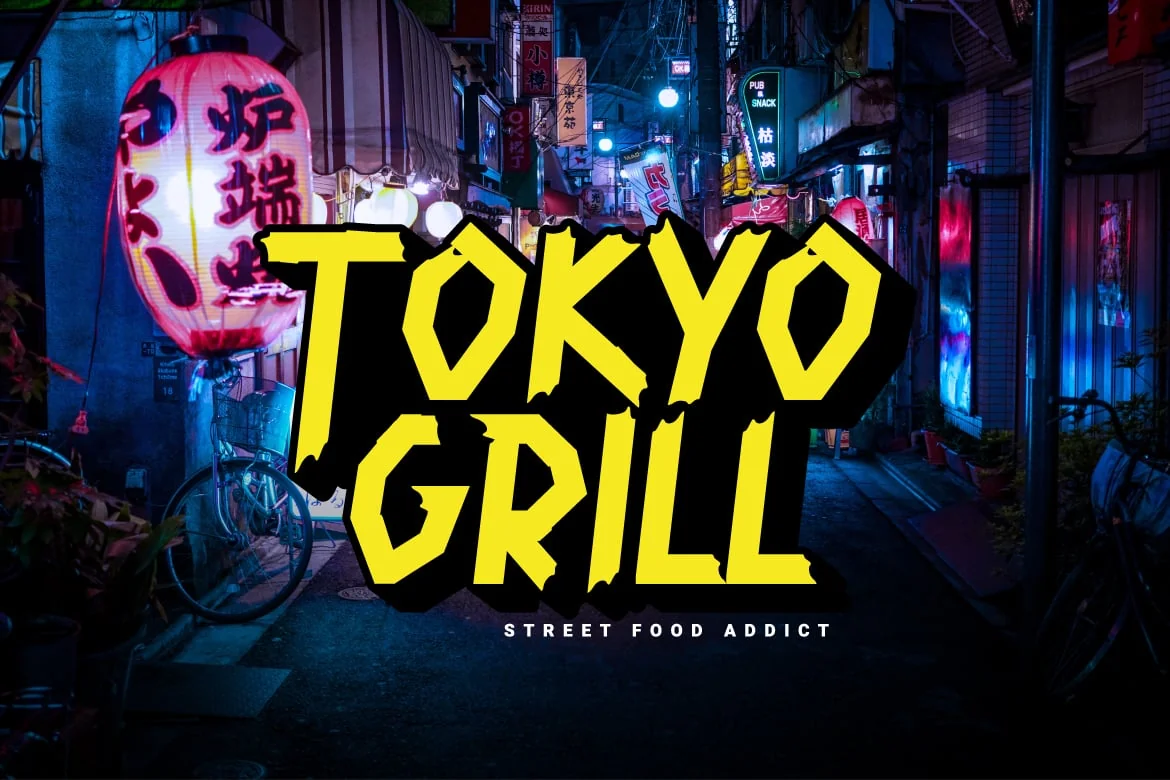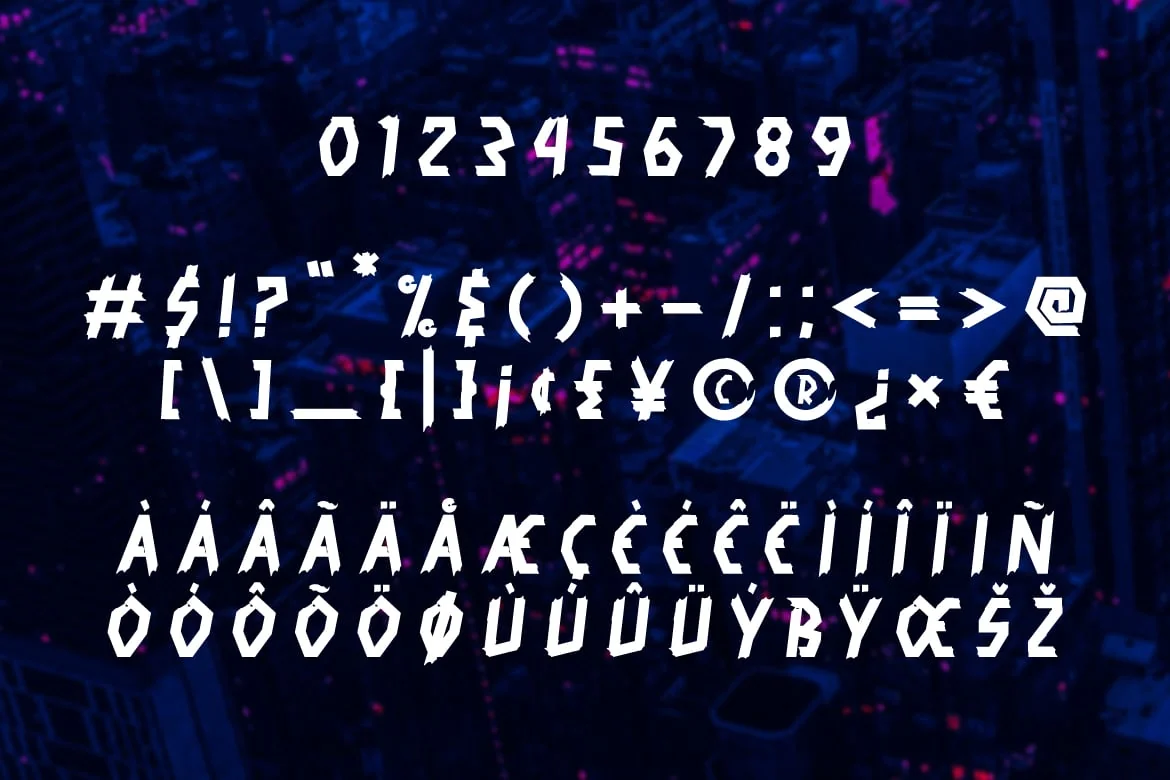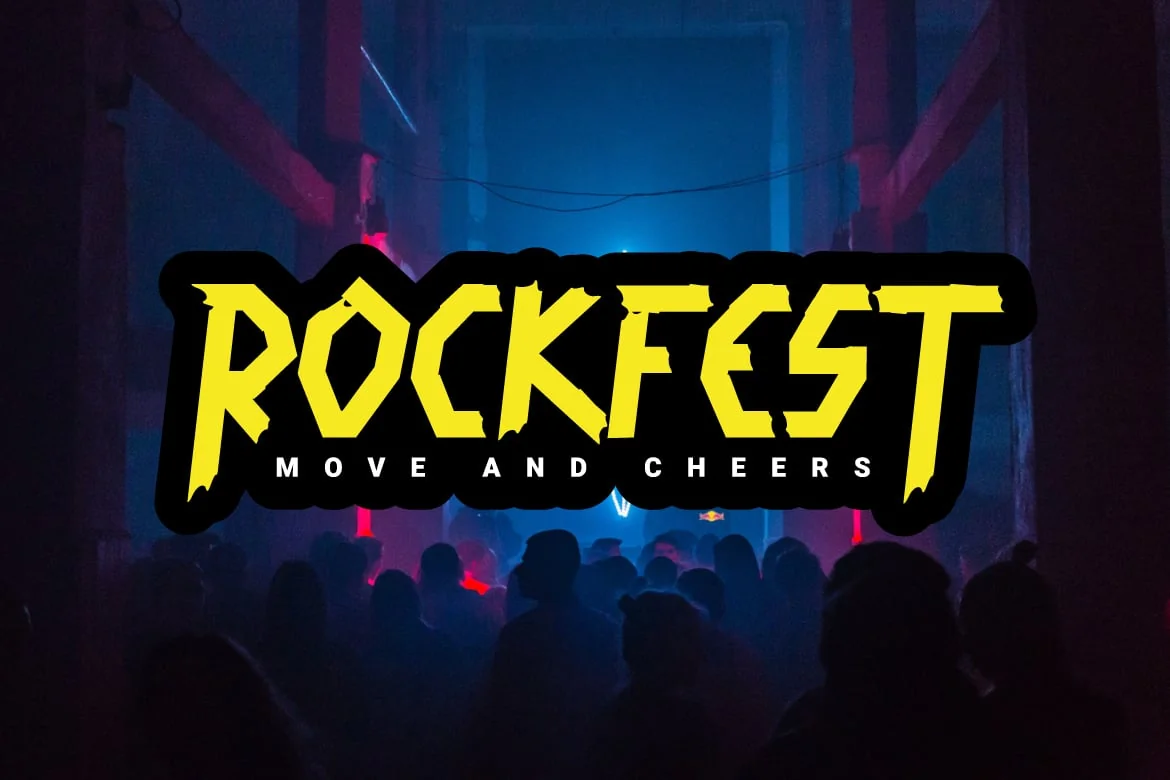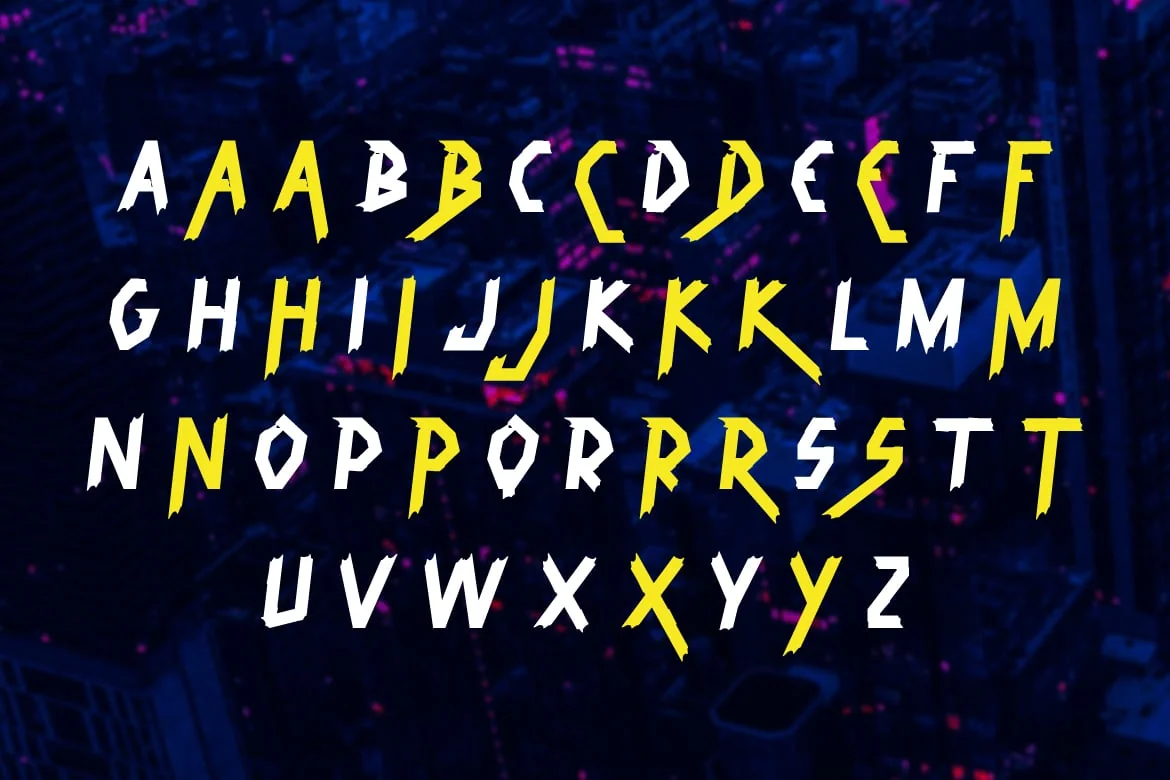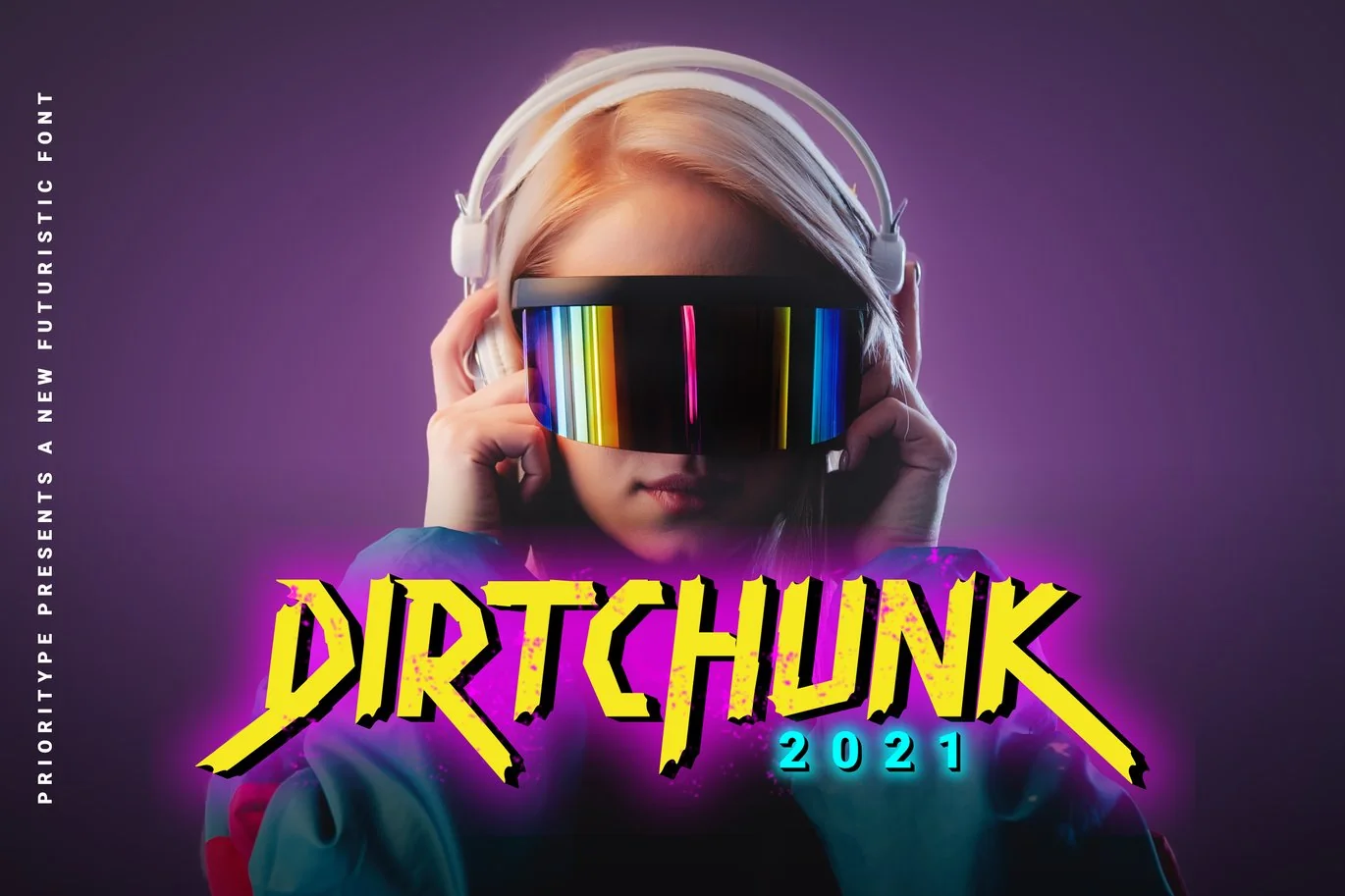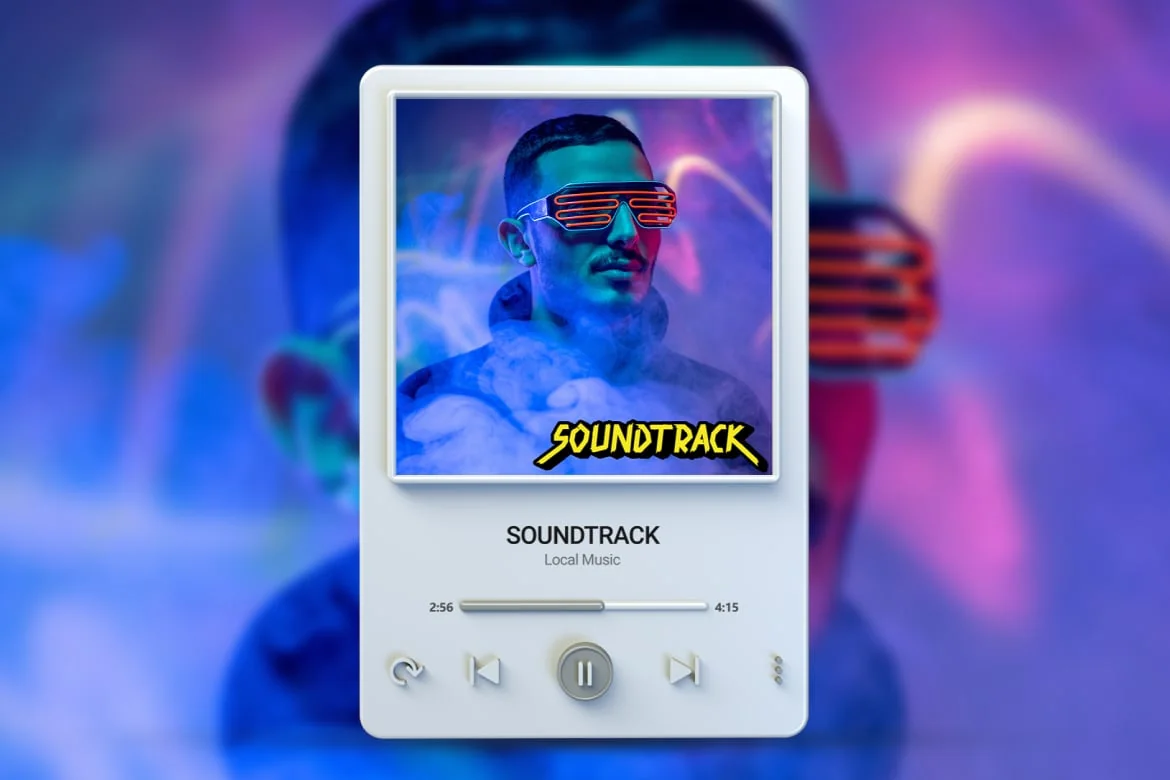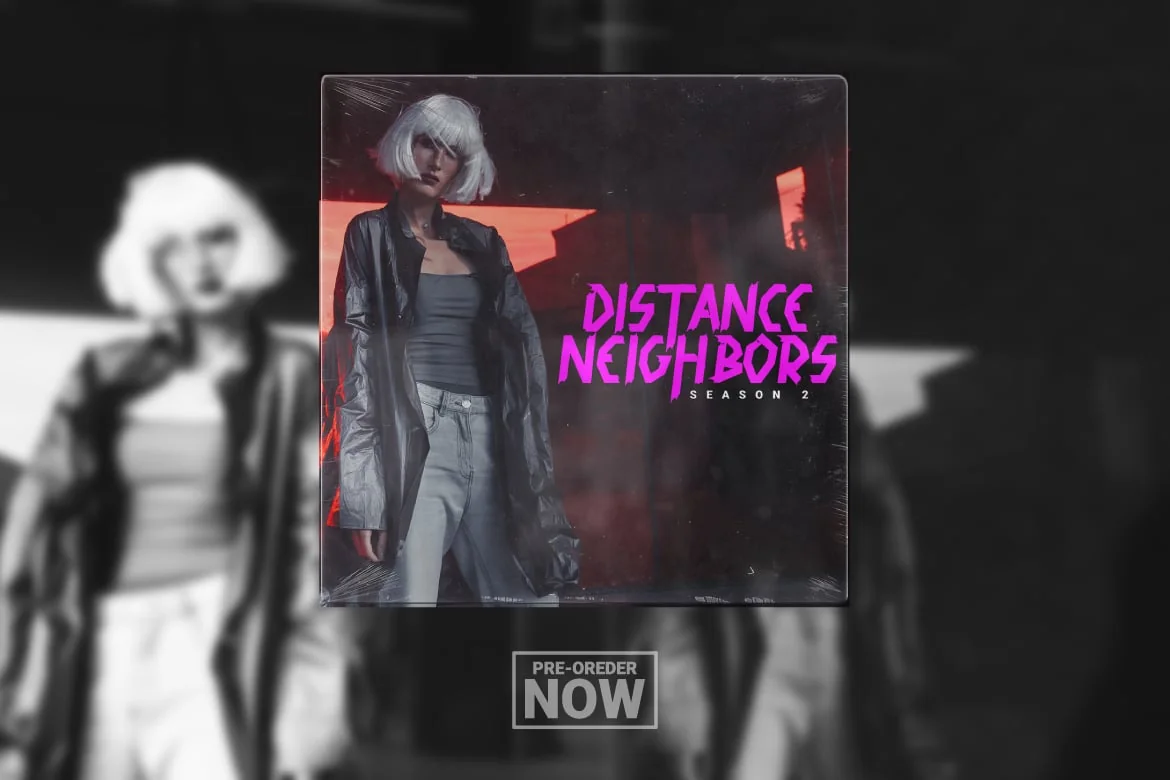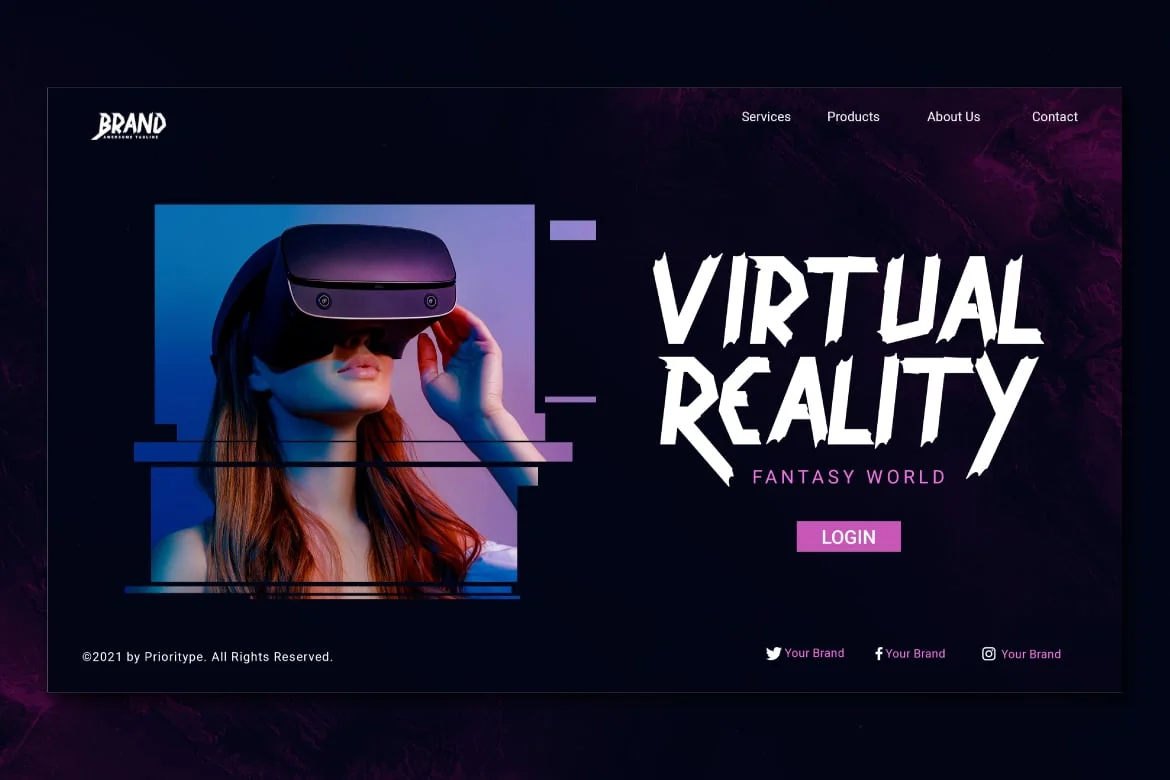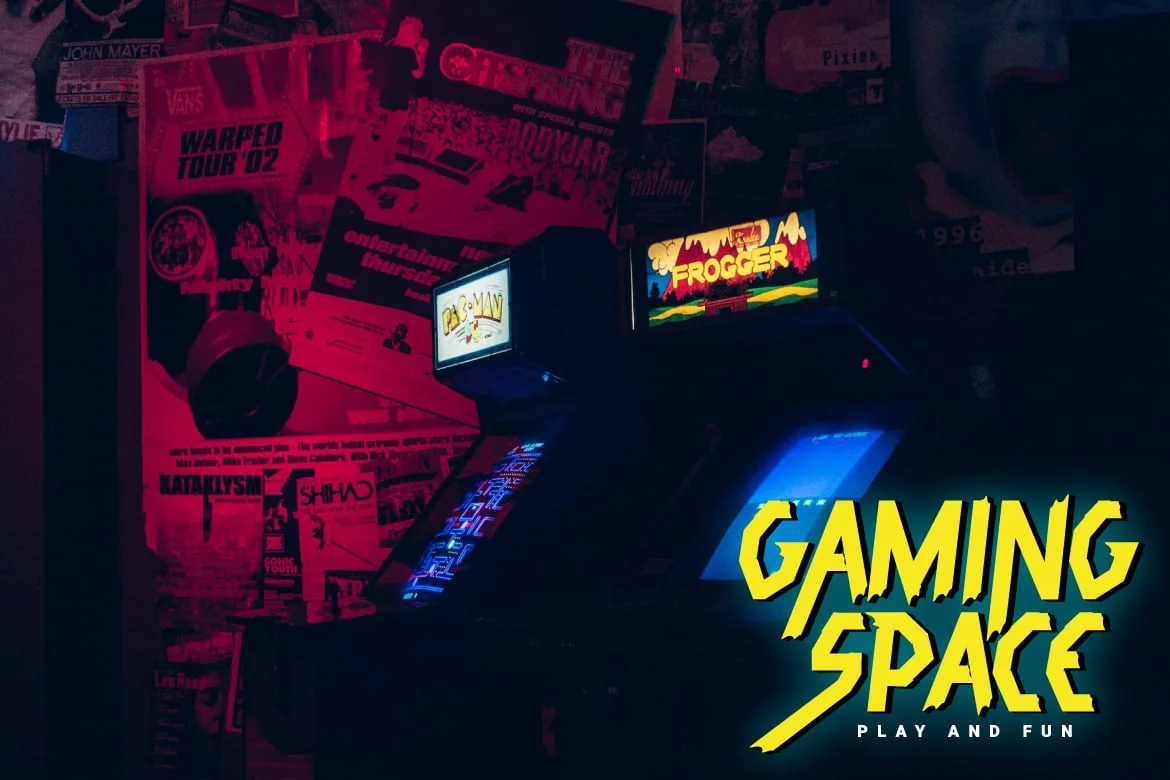
Dirtchunk – Futuristic Font
A new breakthrough in the futuristic world. Now comes a font with strong character for all your design projects for today and even into the future. Perfect for album cover designs, movie titles, games, apps, landing pages, UI / UX, music shows and whatever it is just do it! See some of the previews above for reference
- Features: All Caps, Numeral, Punctuation, Multilingual.